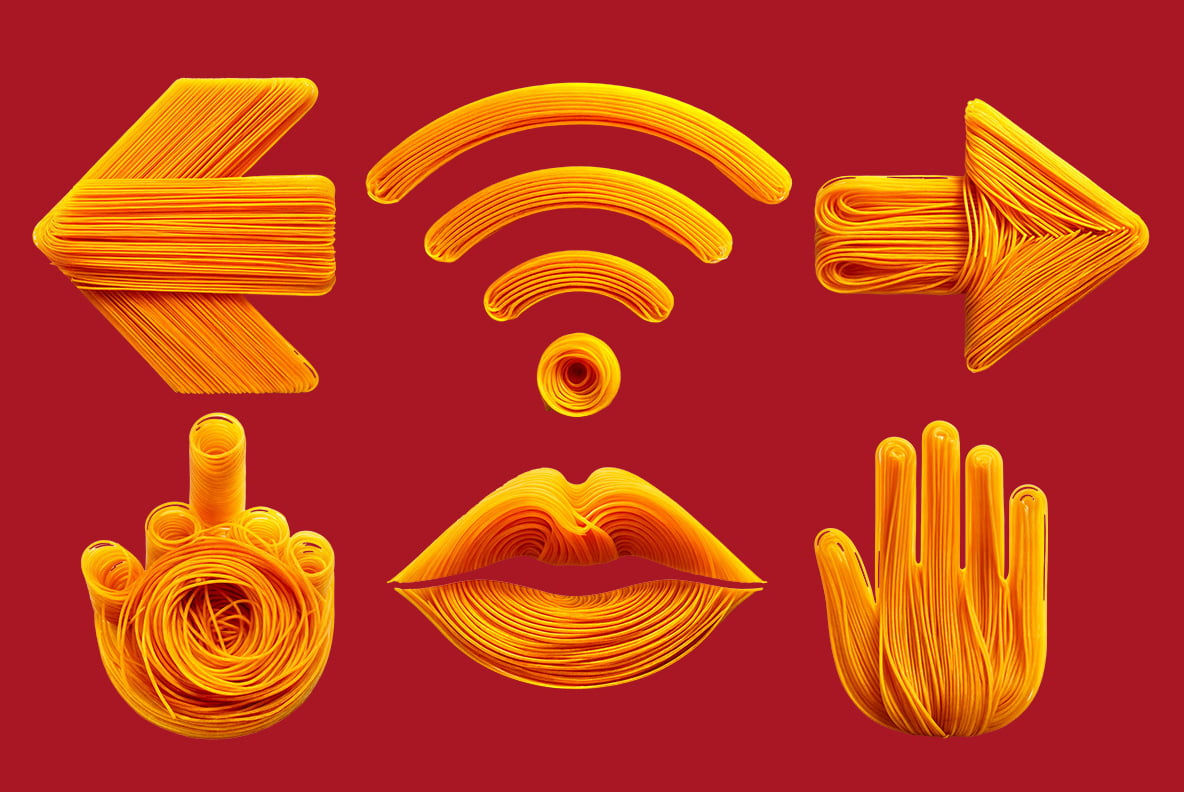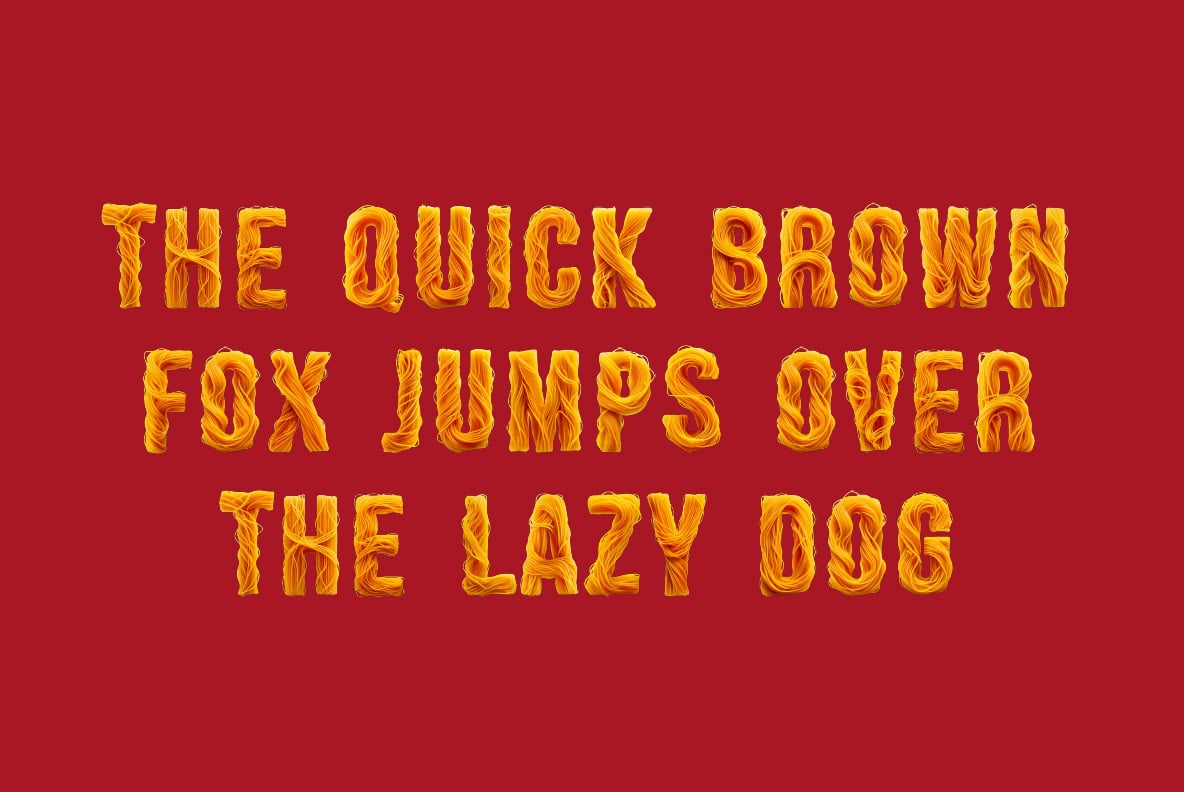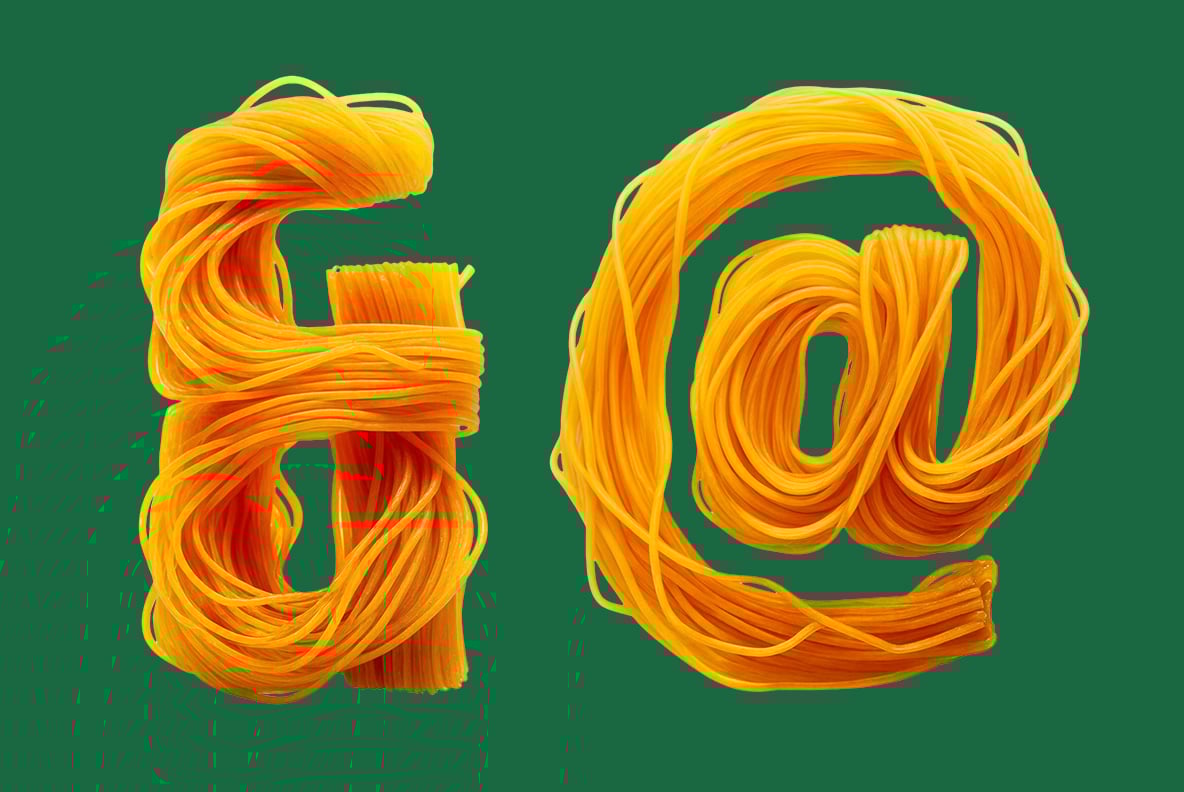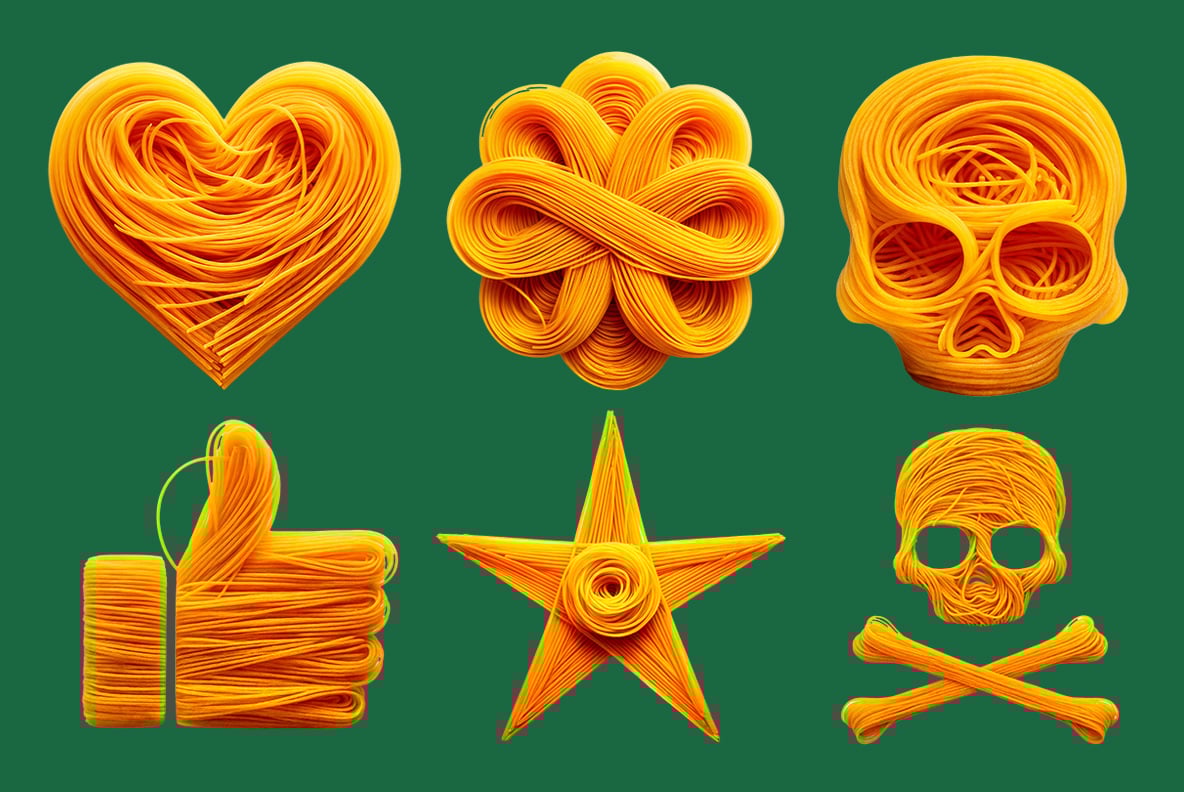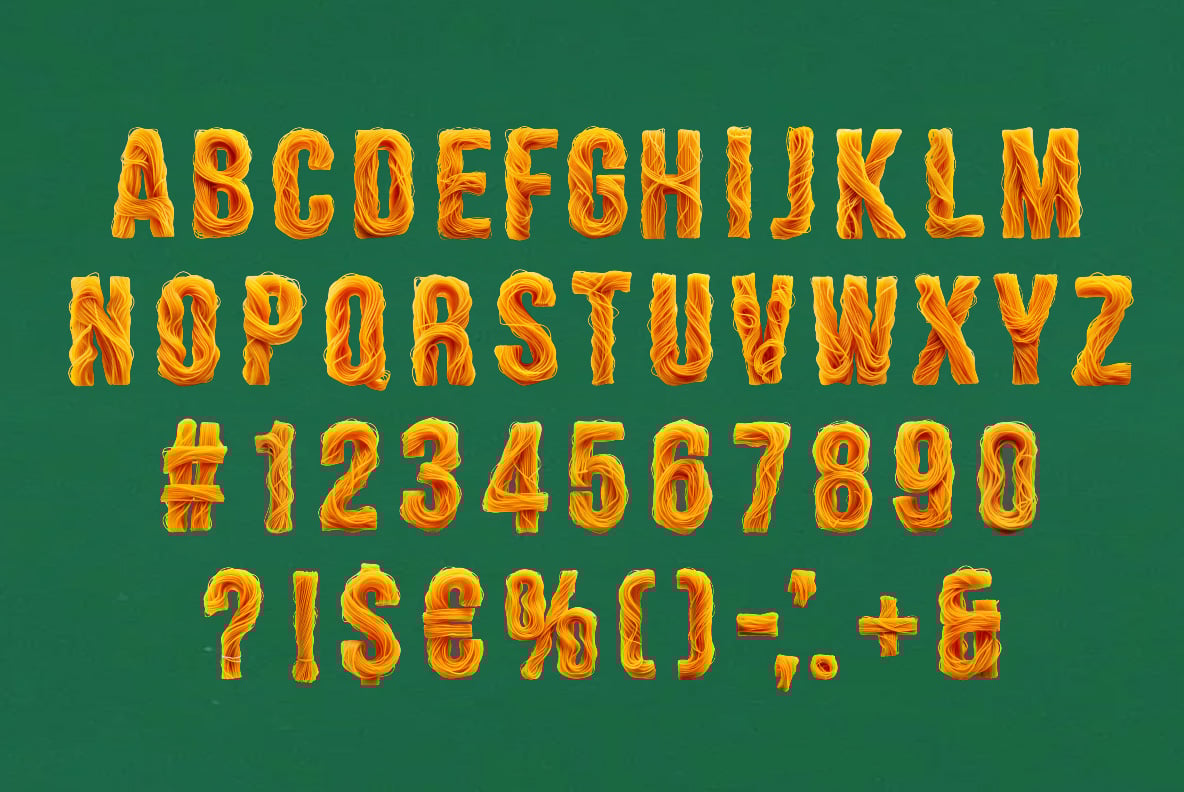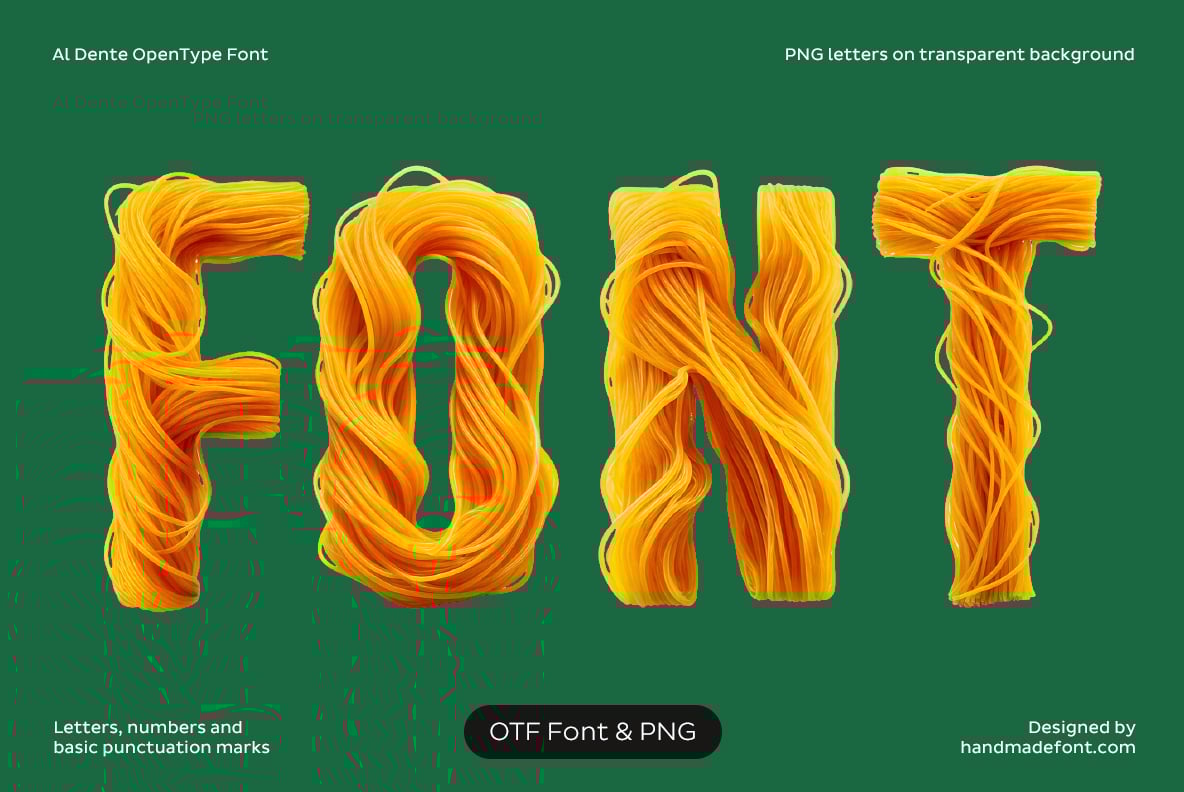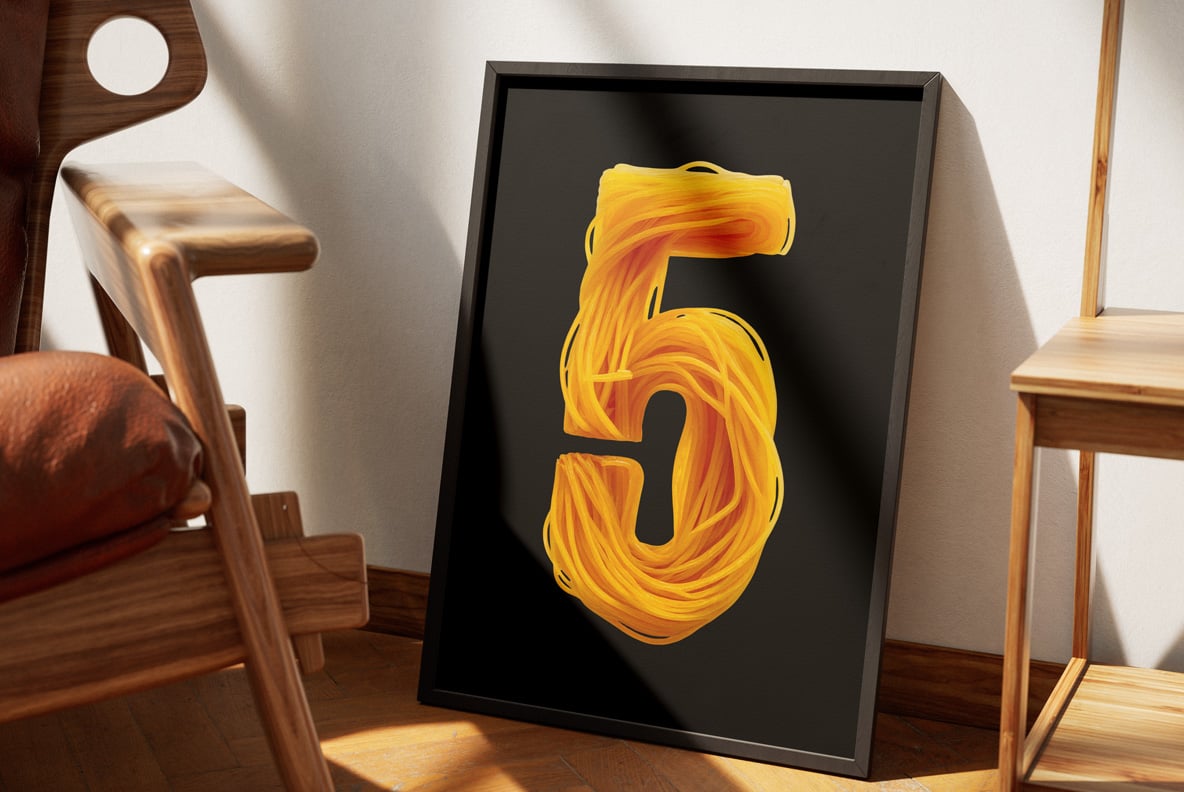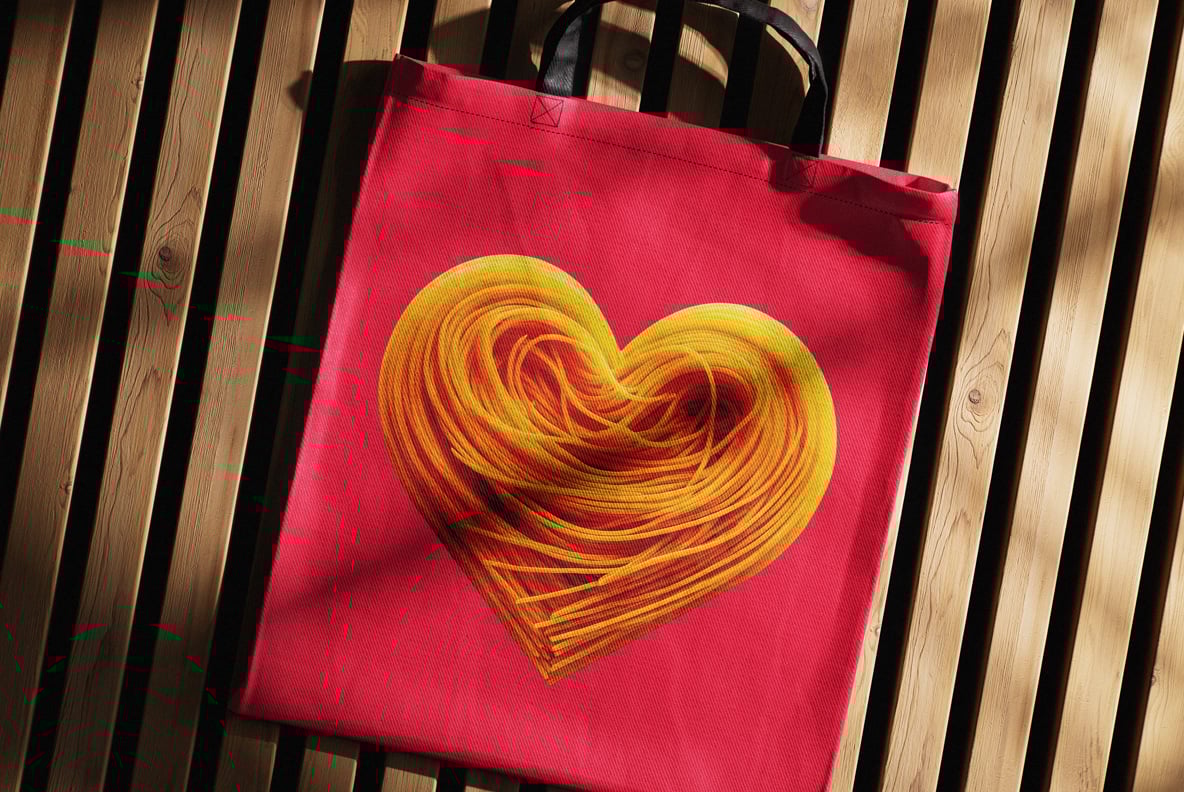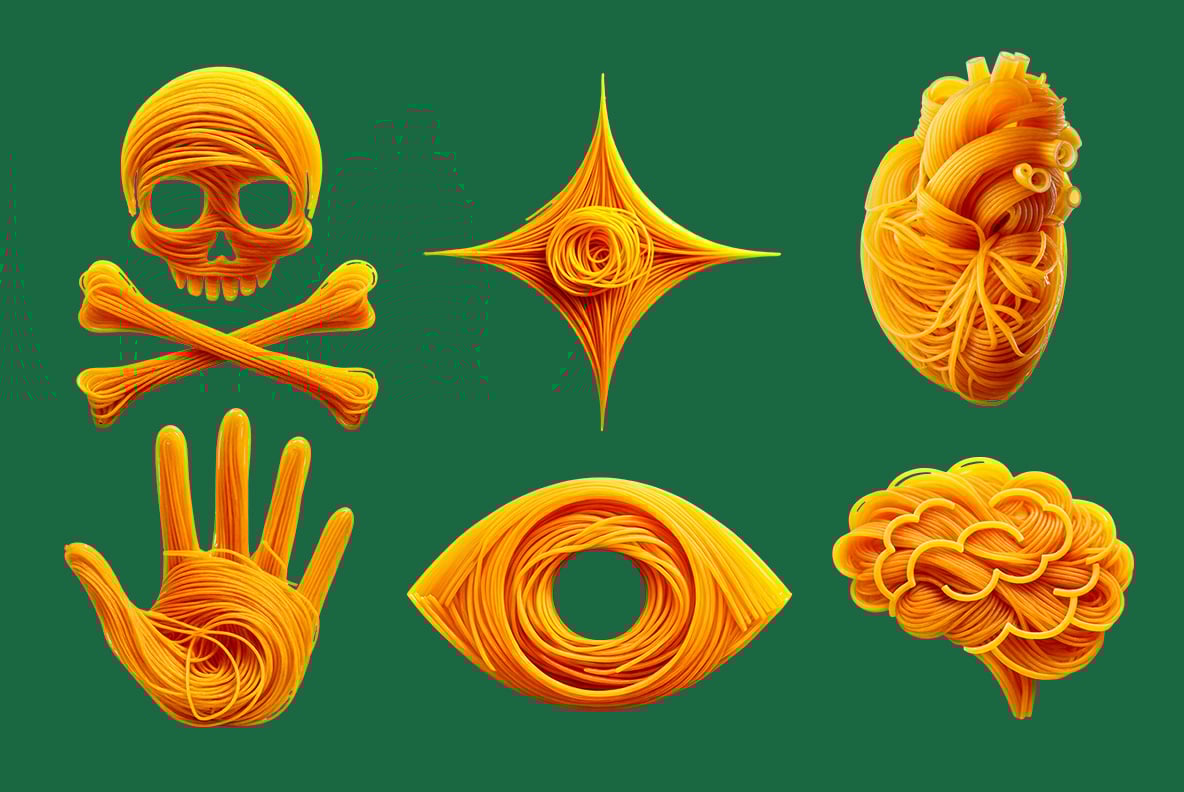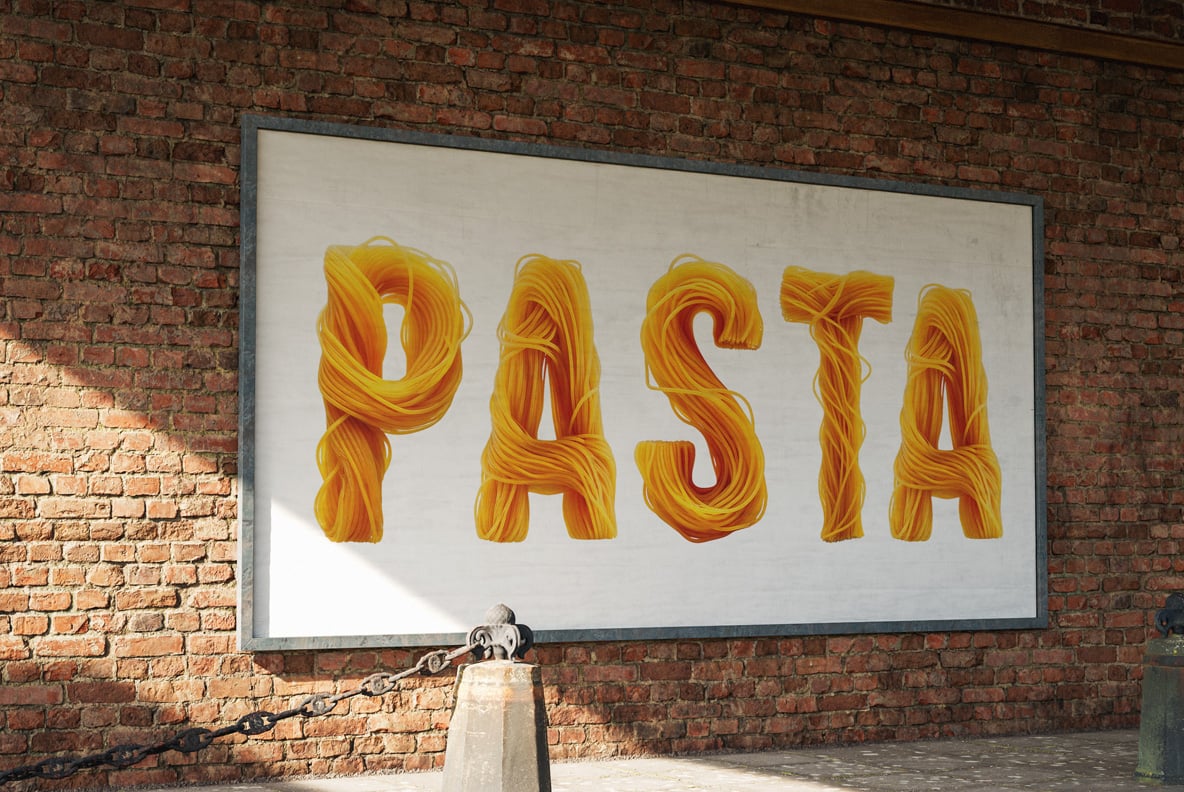
Al Dente Font
Al Dente Font is a mouthwatering handmade typeface inspired by the beauty of real pasta. Crafted from carefully arranged spaghetti strands, each letter feels alive with texture, warmth, and delicious personality. This unique OpenType and PNG font combines culinary artistry with playful typography, perfect for food-related branding, restaurant menus, creative packaging, or bold advertising. Designed with precision and humor, Al Dente transforms simple text into a visual feast — golden, glossy, and irresistibly Italian. Serve it with creativity, pair it with bold colors, and let your words taste as good as they look. Bon appétit for your typography!
A high definition OpenType Font. Contains uppercase characters, numerals and basic punctuation. (Draw height roughly 800 pixels). All letters and glyphs that comprises this font you can see on the preview.
Others : ! ? - . ' $ € % & #